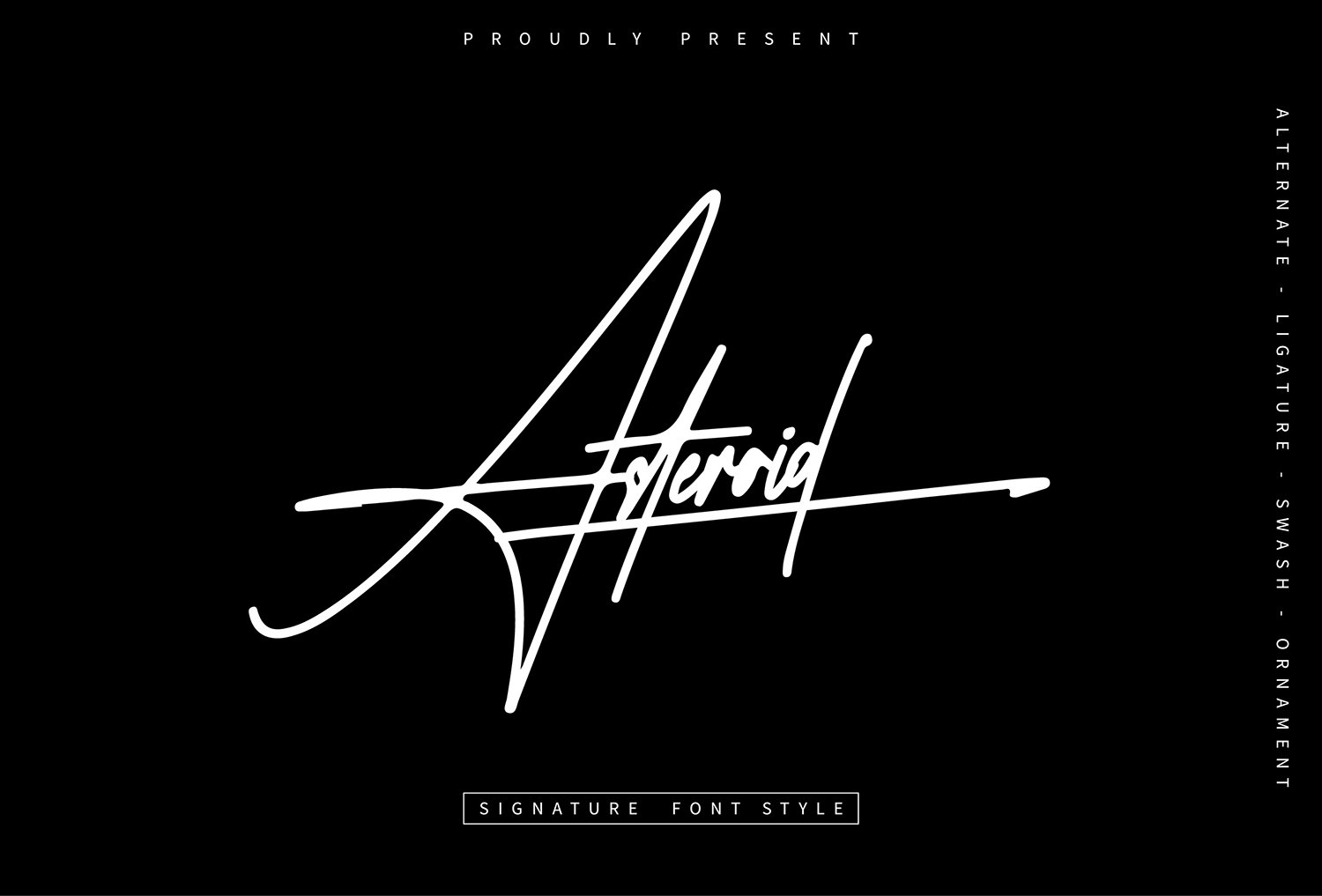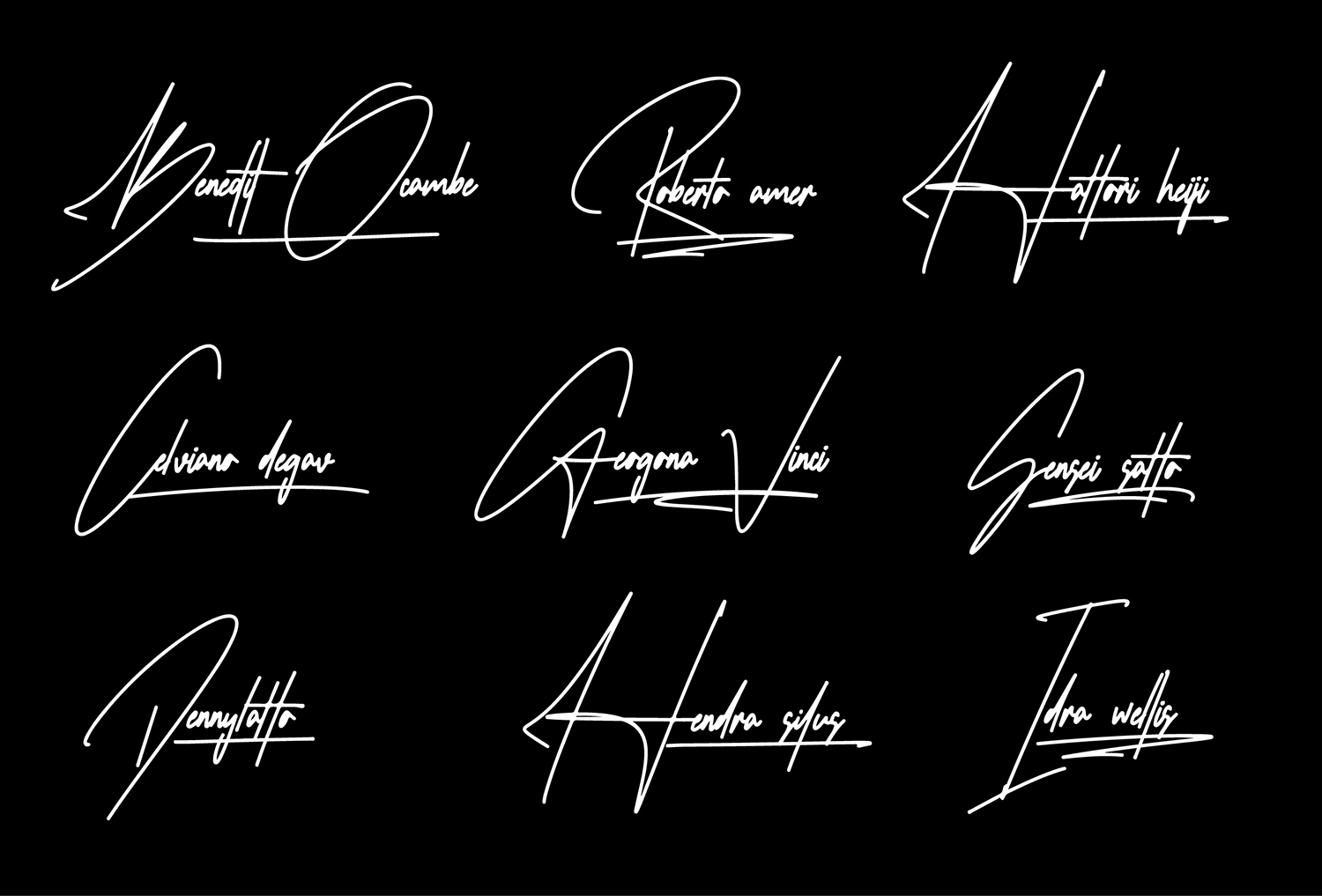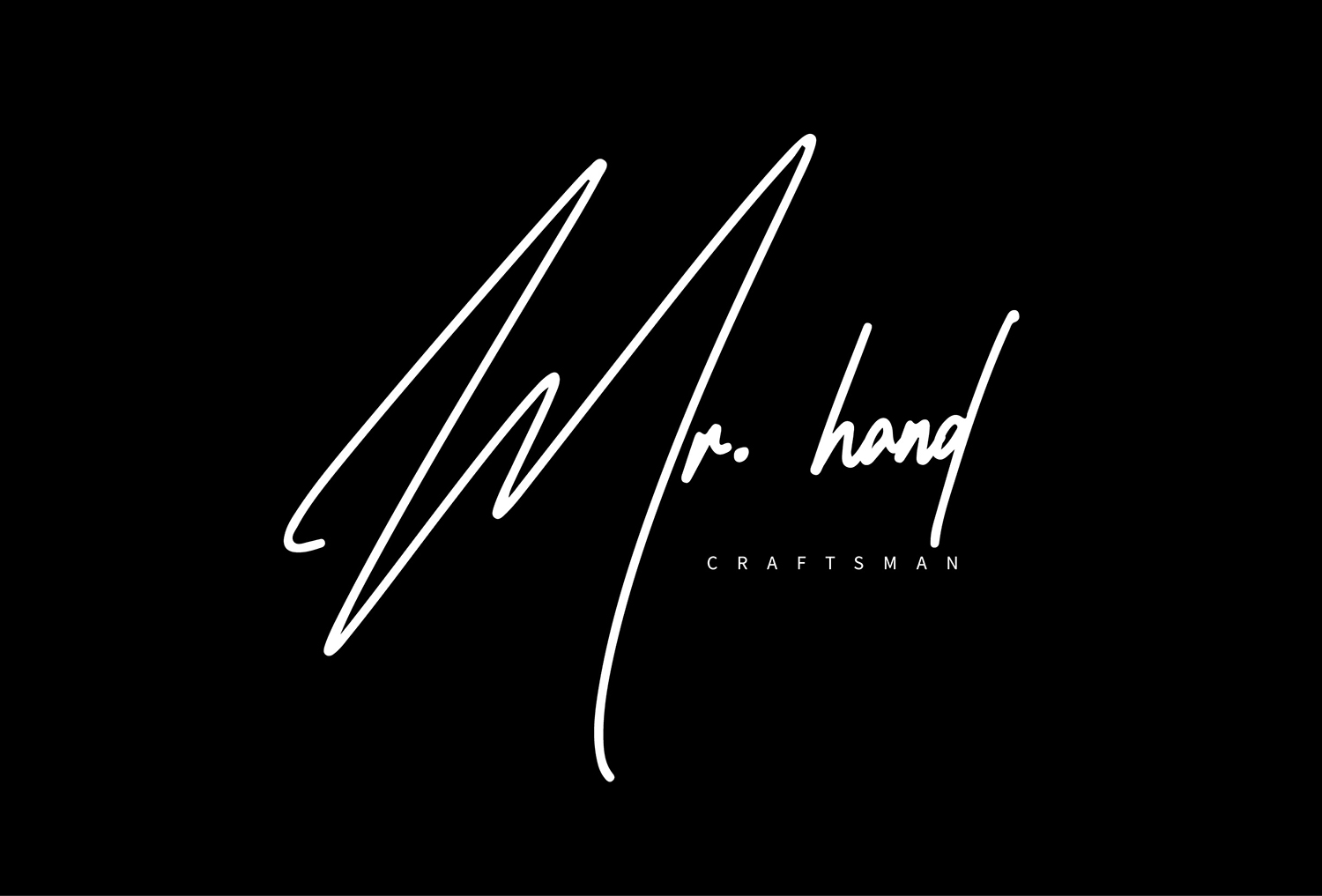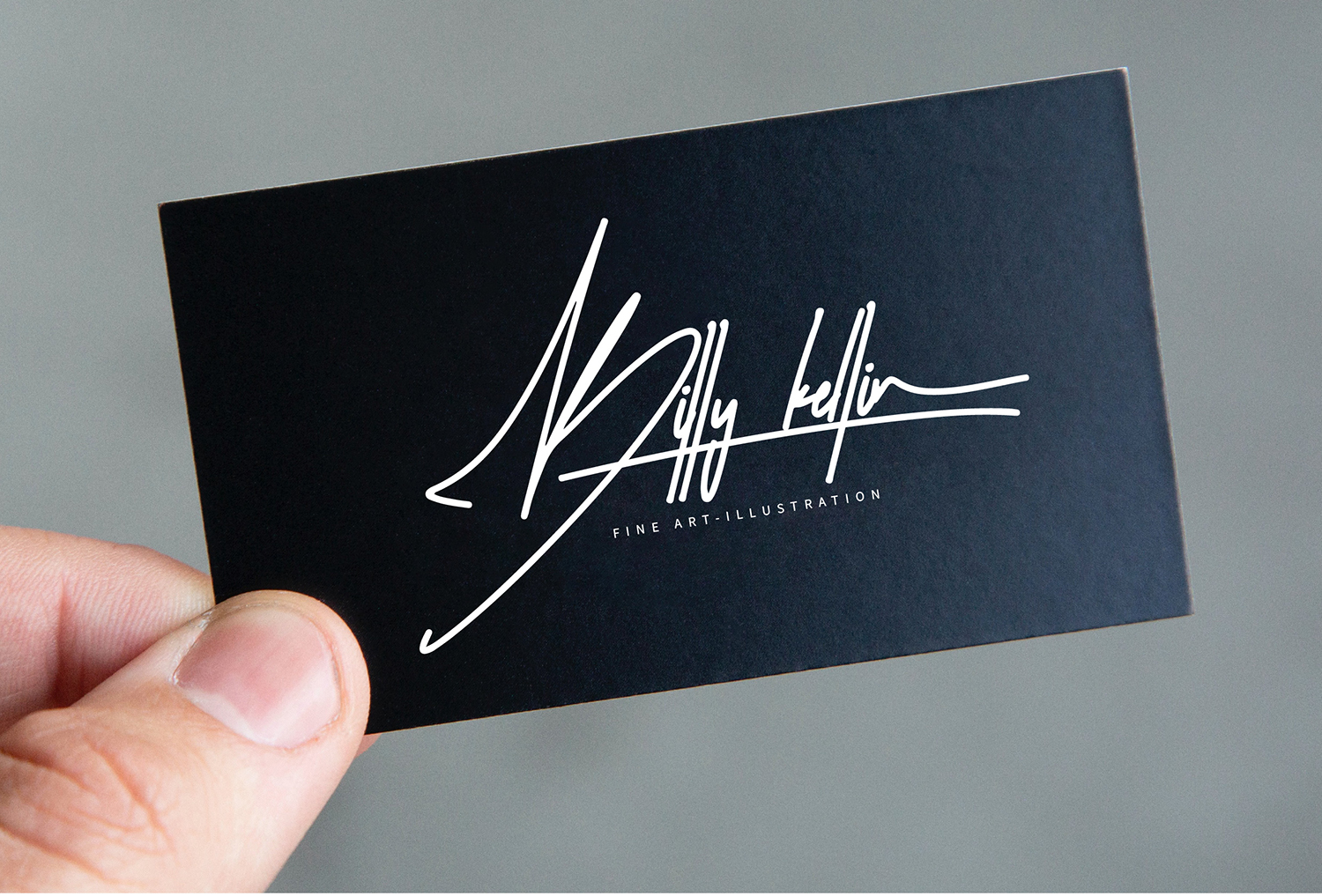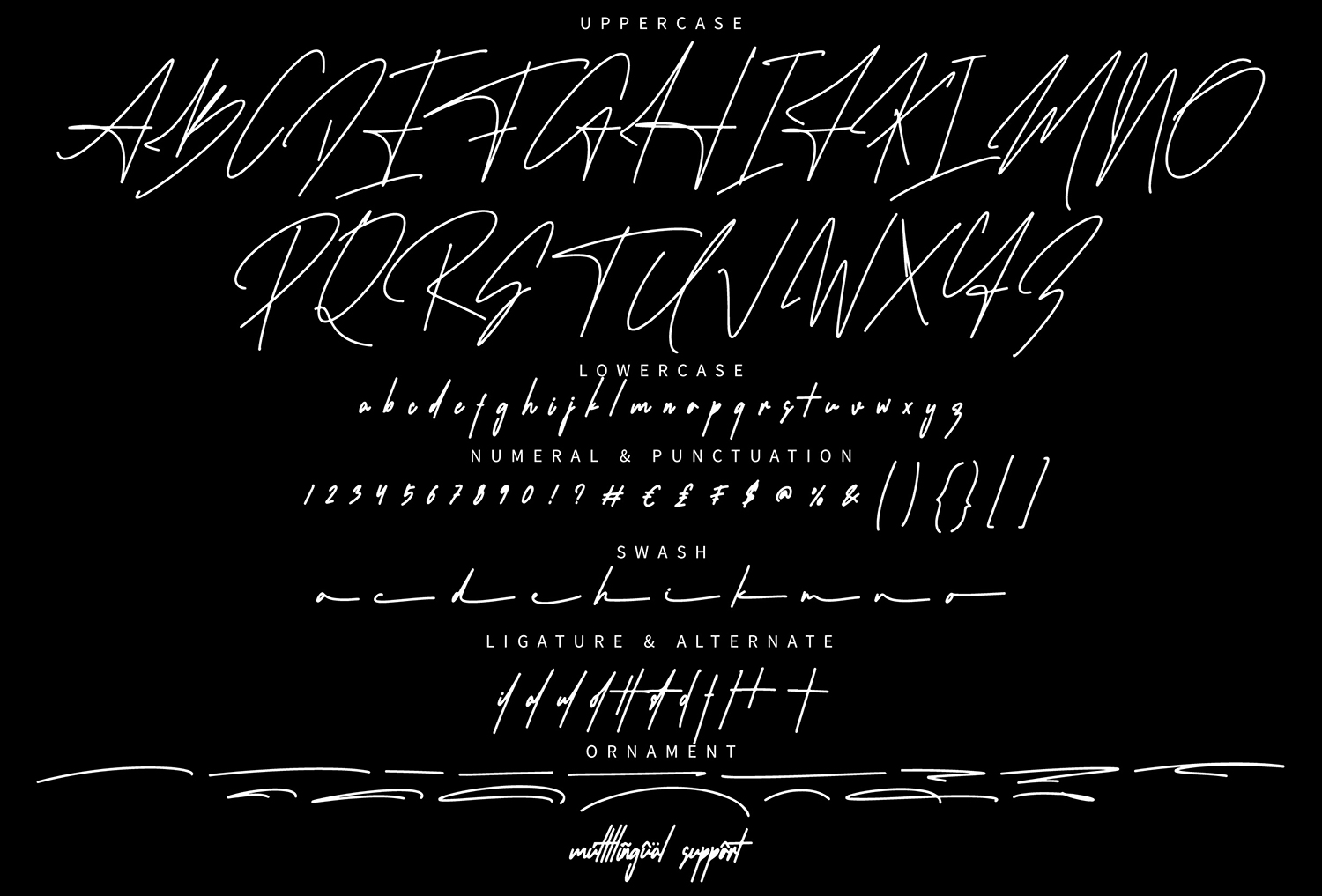
Asteroid Free Font
Asteroid Free Font is an elegant and modern script font. Its smooth and fluid lines create a sense of motion and grace, while the carefully crafted curves and flourishes lend it a contemporary feel. Perfect for invitations, branding, and all your creative endeavors, this font is sure to impress. This free typeface was designed by a talented Ryan Creative. If you like it don’t forget to check out the full version.